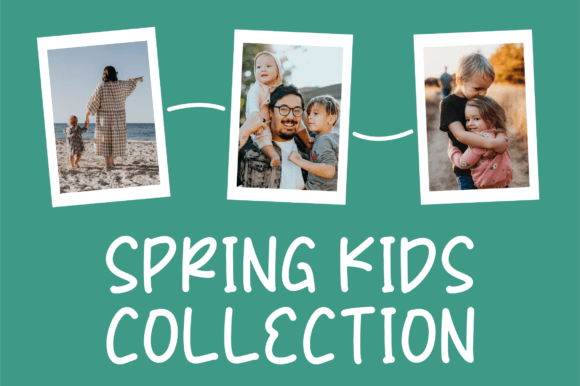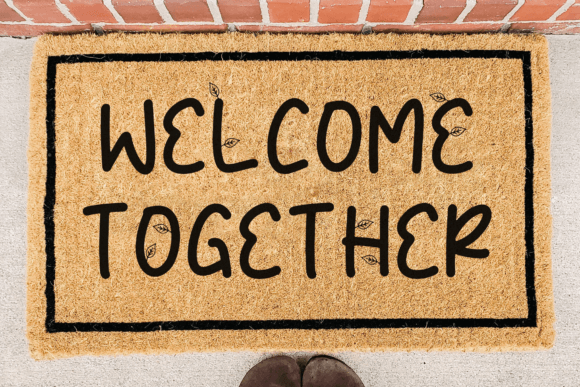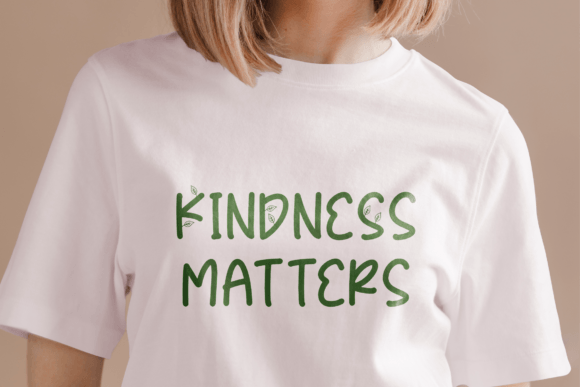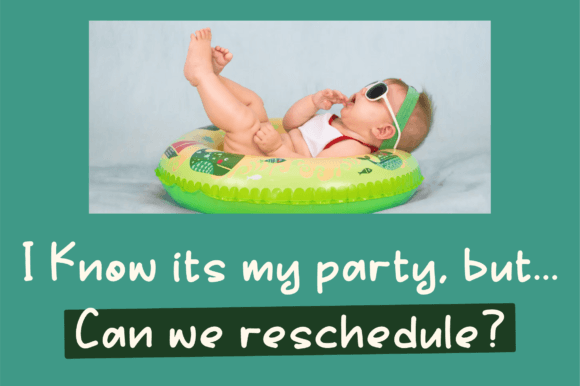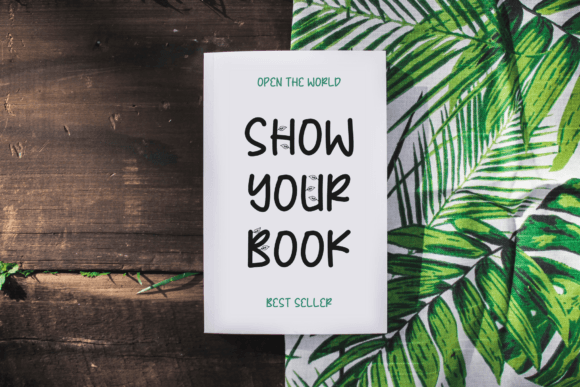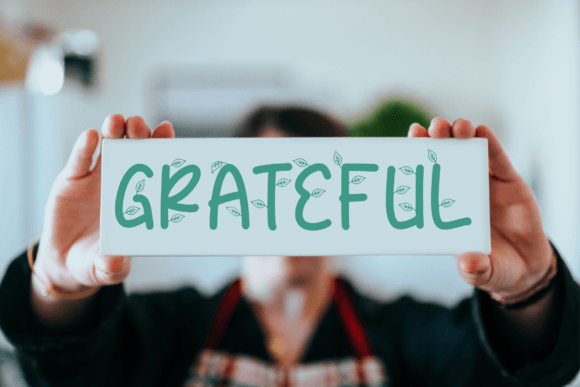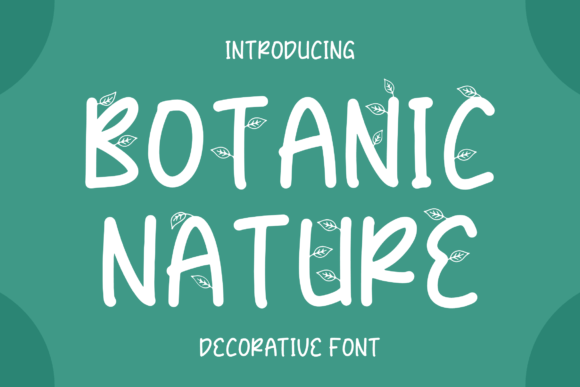
The Perfect Font for Your Next Creative Project: Botanic Nature
Have you ever been working on a design project, and suddenly, you realize that the font you’ve chosen just isn’t right? I recall a particularly frustrating experience when I was designing a logo for a client’s eco-friendly brand. I had spent hours browsing through font libraries, but nothing seemed to fit the vibe I was going for. That was until I stumbled upon Botanic Nature – a beautiful, natural decorative font that instantly elevated my design.
An Honest Review of Botanic Nature
So, what makes Botanic Nature so special? Let’s dive into the good stuff!
- ✨ Elegant and sophisticated: Botanic Nature has a unique, hand-drawn feel that’s perfect for adding a touch of elegance to your designs.
- ✅ Highly versatile: This font is suitable for a wide range of projects, from logos and branding to homeware designs, product packaging, and more.
- 💫 OpenType features: Botanic Nature supports OpenType features, which means you can access a range of glyphs, stylistic alternates, and other special characters to add extra flair to your designs.
Of course, no font is perfect, and Botanic Nature has a few minor quirks:
- 🤔 Limited character set: While Botanic Nature has a wide range of characters, it may not have every special character or glyph you need.
- ⚠️ May require manual kerning: Depending on your design, you may need to adjust the kerning to get the perfect spacing.
The Backstory Behind Botanic Nature
Botanic Nature was designed by a team of creatives who wanted to capture the essence of the natural world in a font. Inspired by the intricate patterns and shapes found in plants and flowers, they crafted a font that’s both elegant and earthy. Whether you’re designing a logo for a sustainable brand or creating a beautiful poster, Botanic Nature is the perfect choice.
| What type of projects is Botanic Nature best suited for? | Botanic Nature is perfect for a wide range of projects, including logos, branding, homeware designs, product packaging, and more. |
| Does Botanic Nature support OpenType features? | Yes, Botanic Nature supports OpenType features, including glyphs, stylistic alternates, and more. |